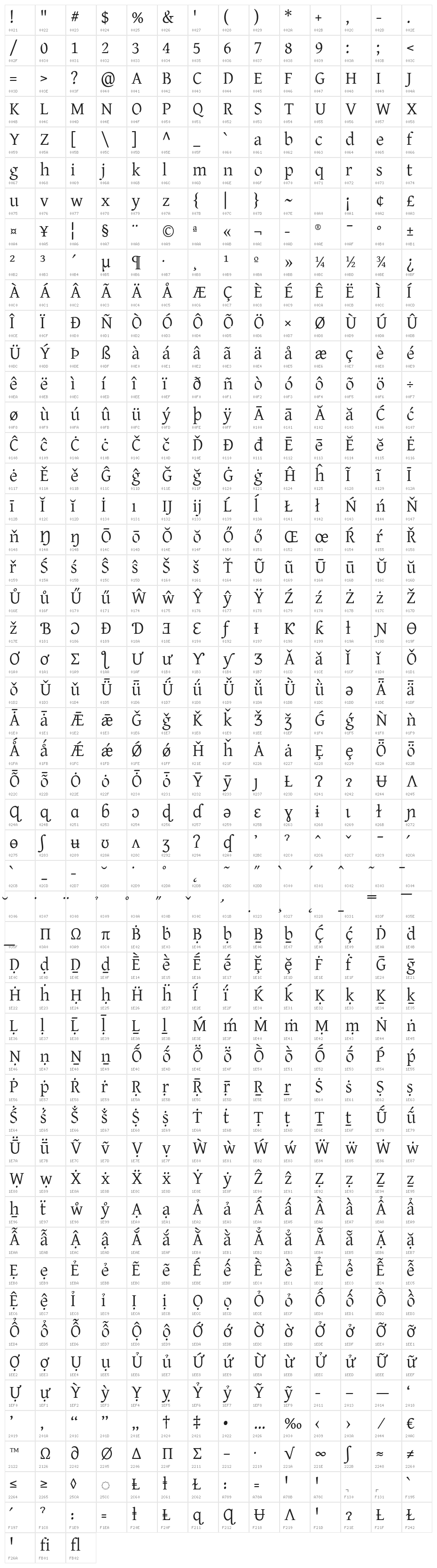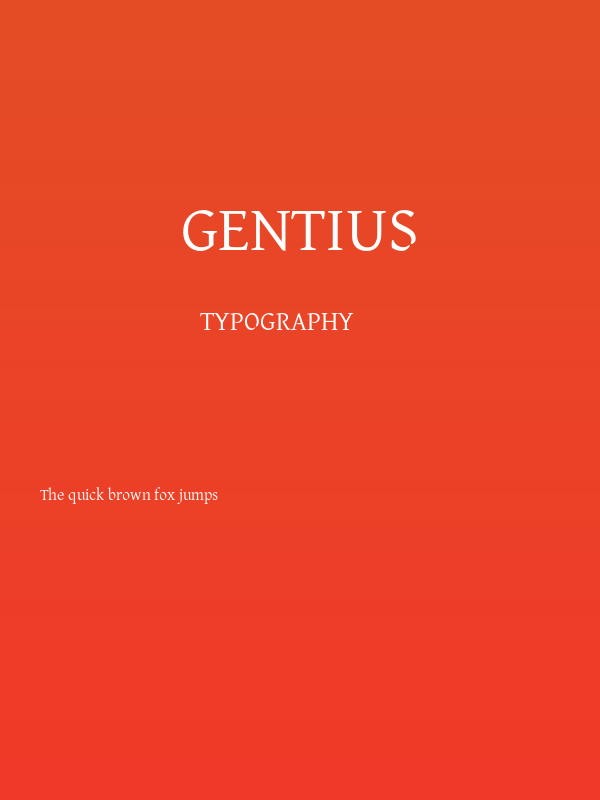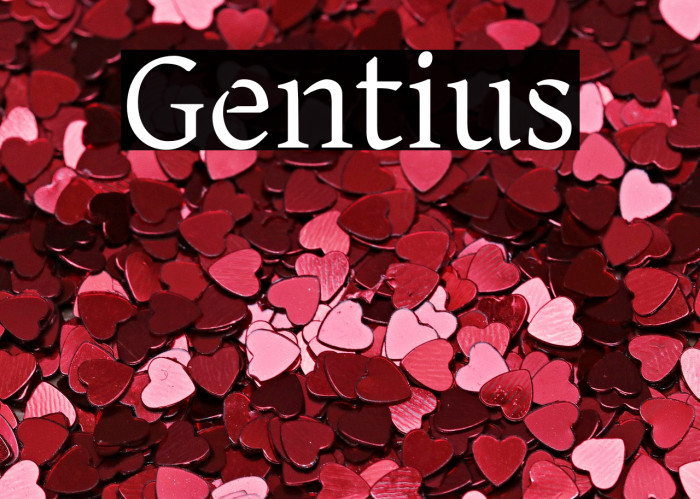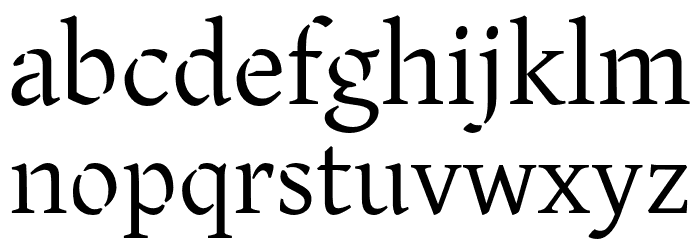
Gentius Font
Gentius Description
This font features a classic serif style with elegant and refined strokes. The uppercase letters are bold and commanding, while the lowercase letters maintain a graceful and fluid form. The numerals are clear and easy to read, making them suitable for various applications. Special characters are distinct and well-crafted, adding versatility to the font. The overall design is balanced, with a slight contrast in stroke thickness that enhances readability without being overwhelming.
| Proposed Projects | Ideal for editorial design, book covers, formal invitations, and branding projects that require a touch of sophistication. |